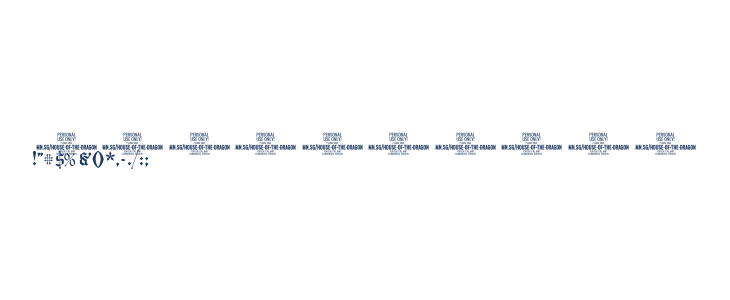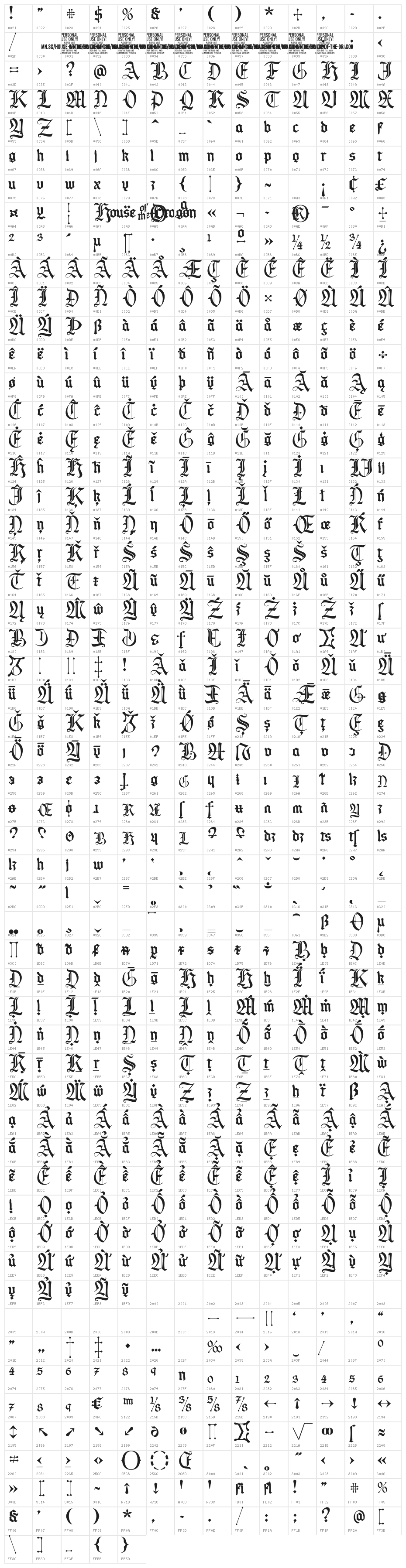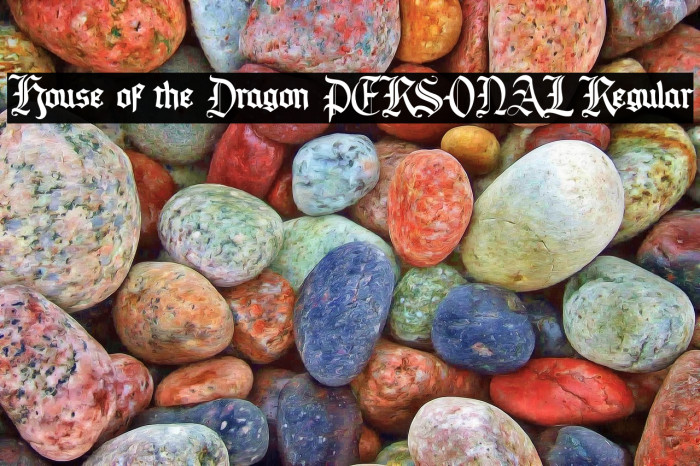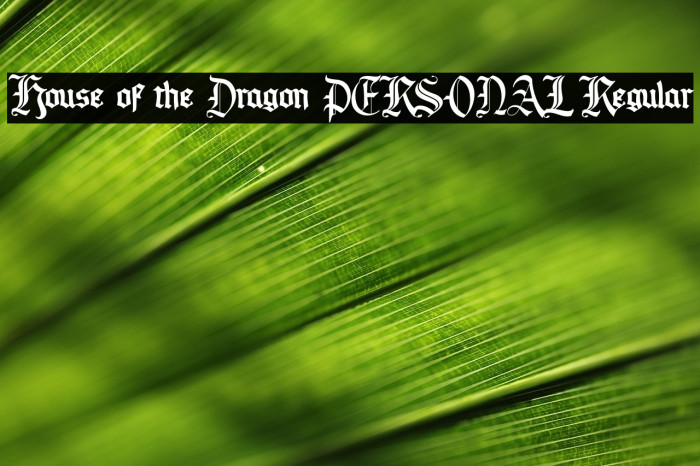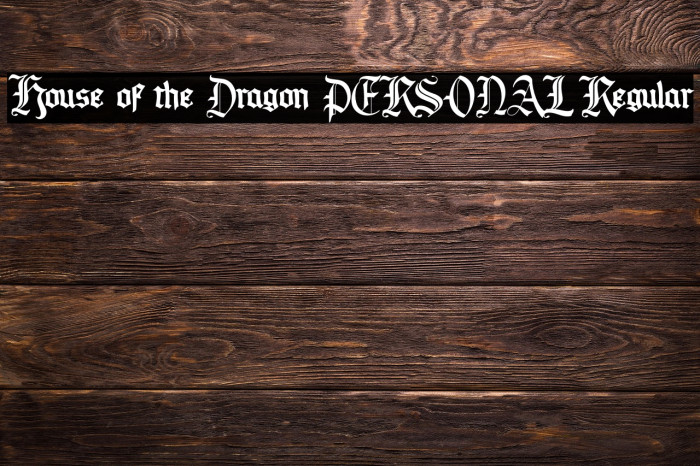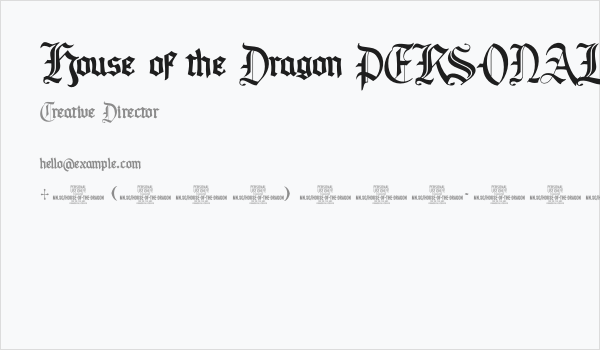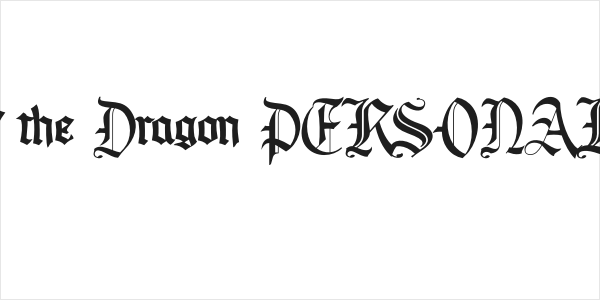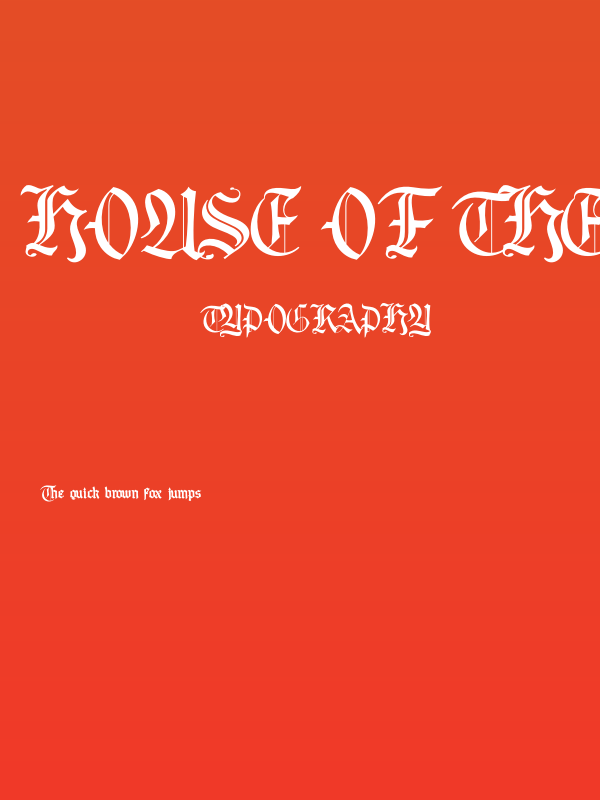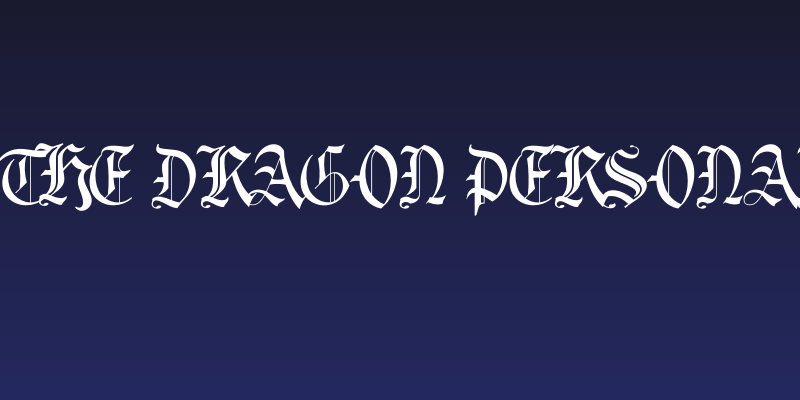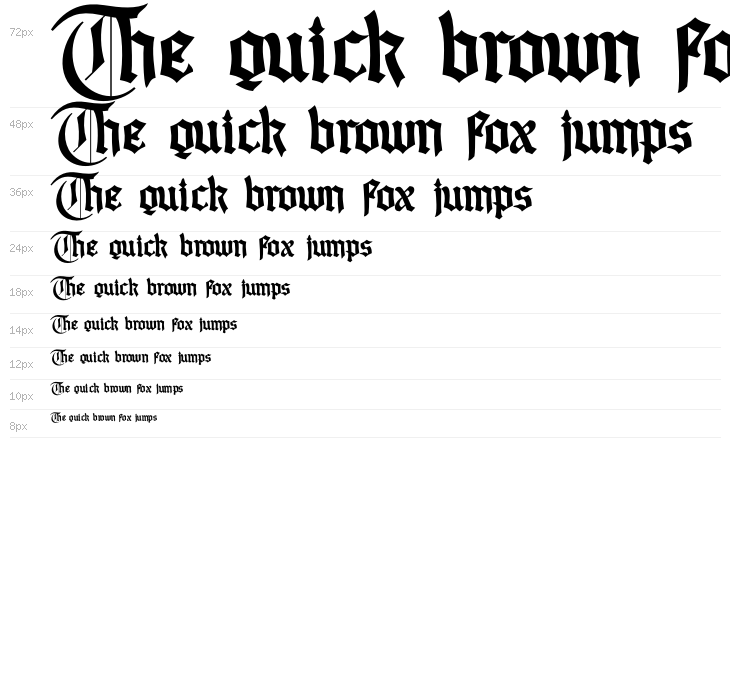
House of the Dragon PERSONAL Regular Font
House of the Dragon PERSONAL Regular Description
This font features a classic Blackletter style, characterized by its intricate and ornate letterforms. The uppercase letters are highly decorative, with sharp angles and elaborate serifs that give a sense of historical elegance. The lowercase letters maintain the same level of detail, with bold strokes and a slightly condensed appearance. The numbers and special characters follow the same stylistic cues, ensuring consistency across all glyphs. This font evokes a sense of tradition and formality, making it ideal for projects that require a touch of medieval or gothic flair.